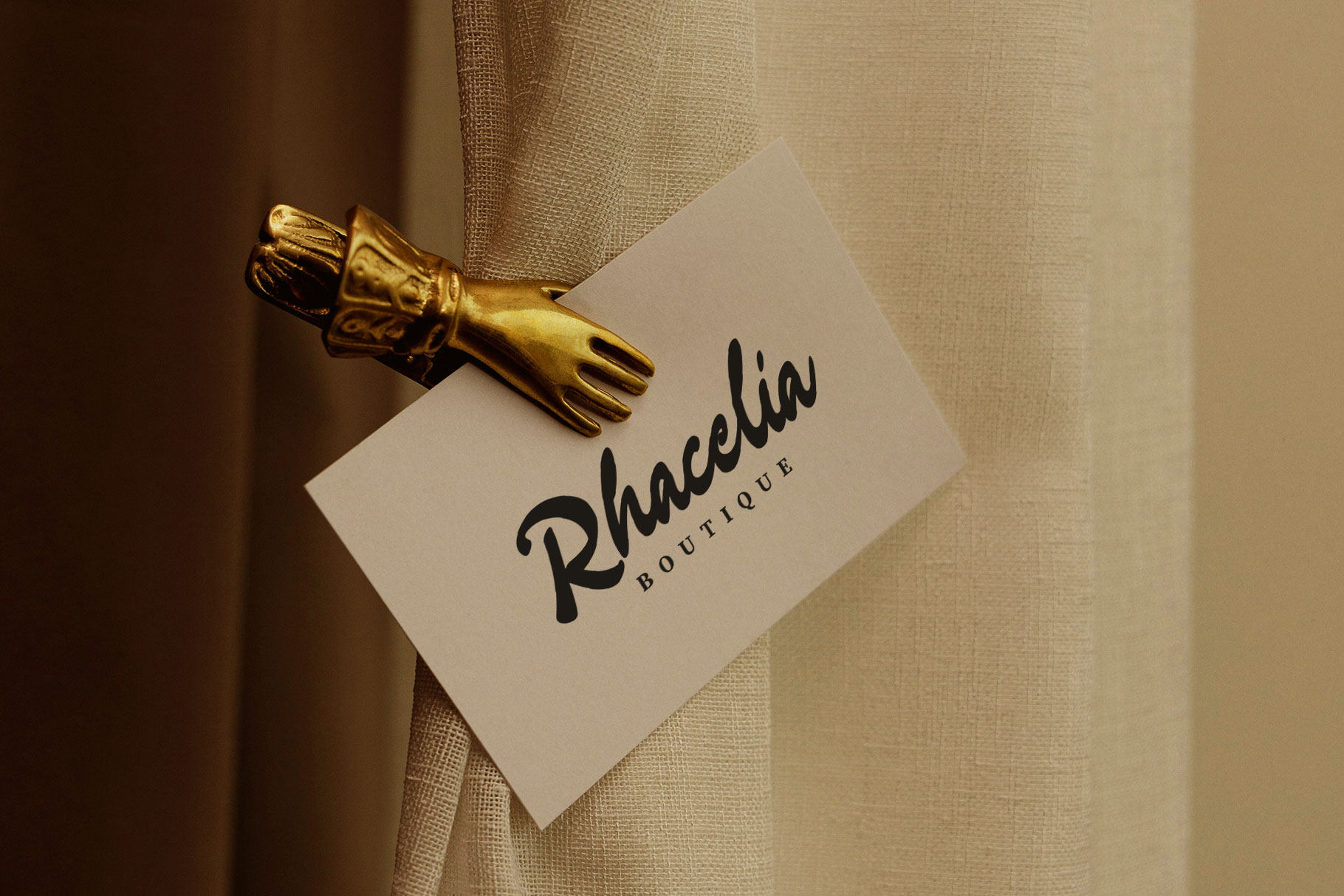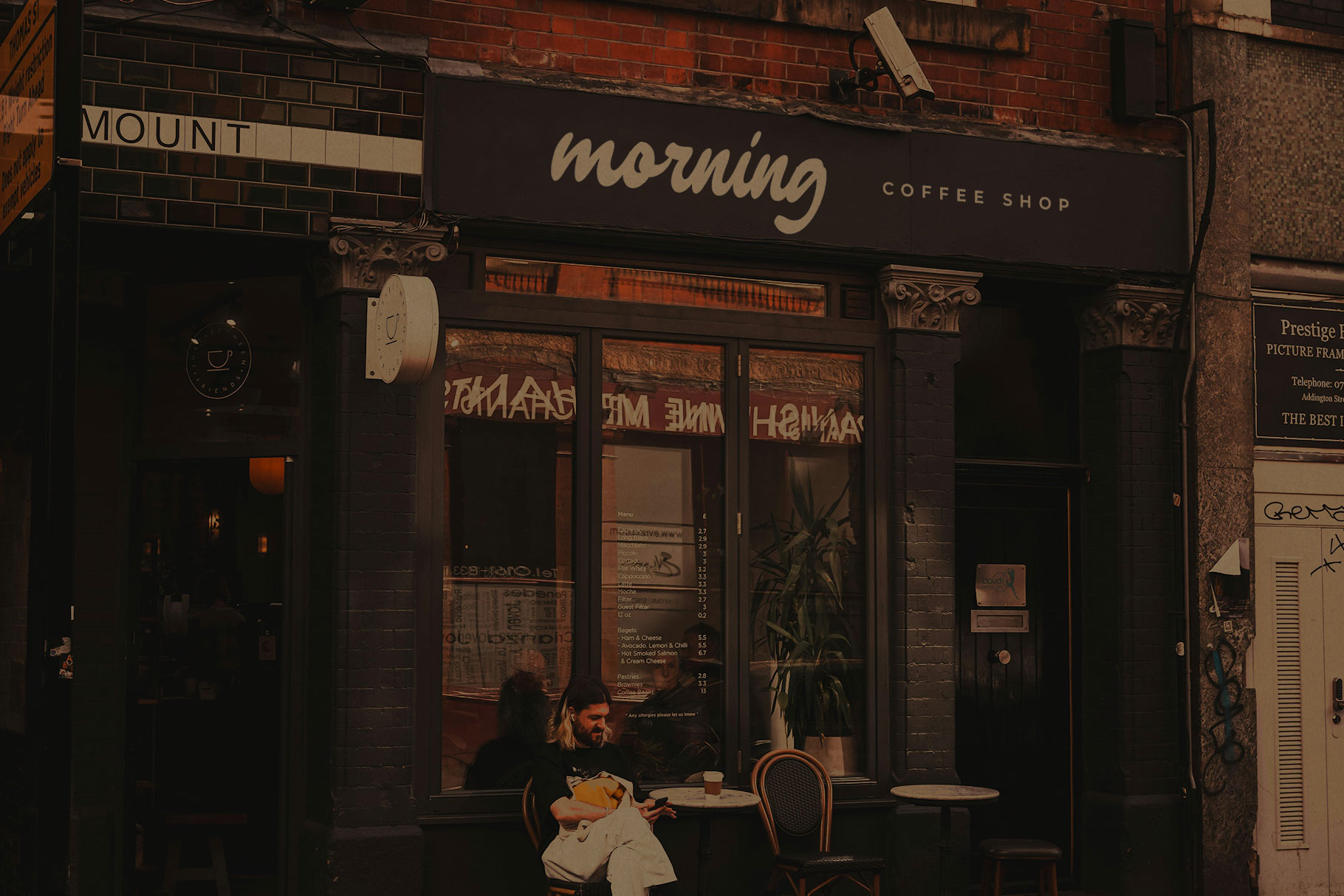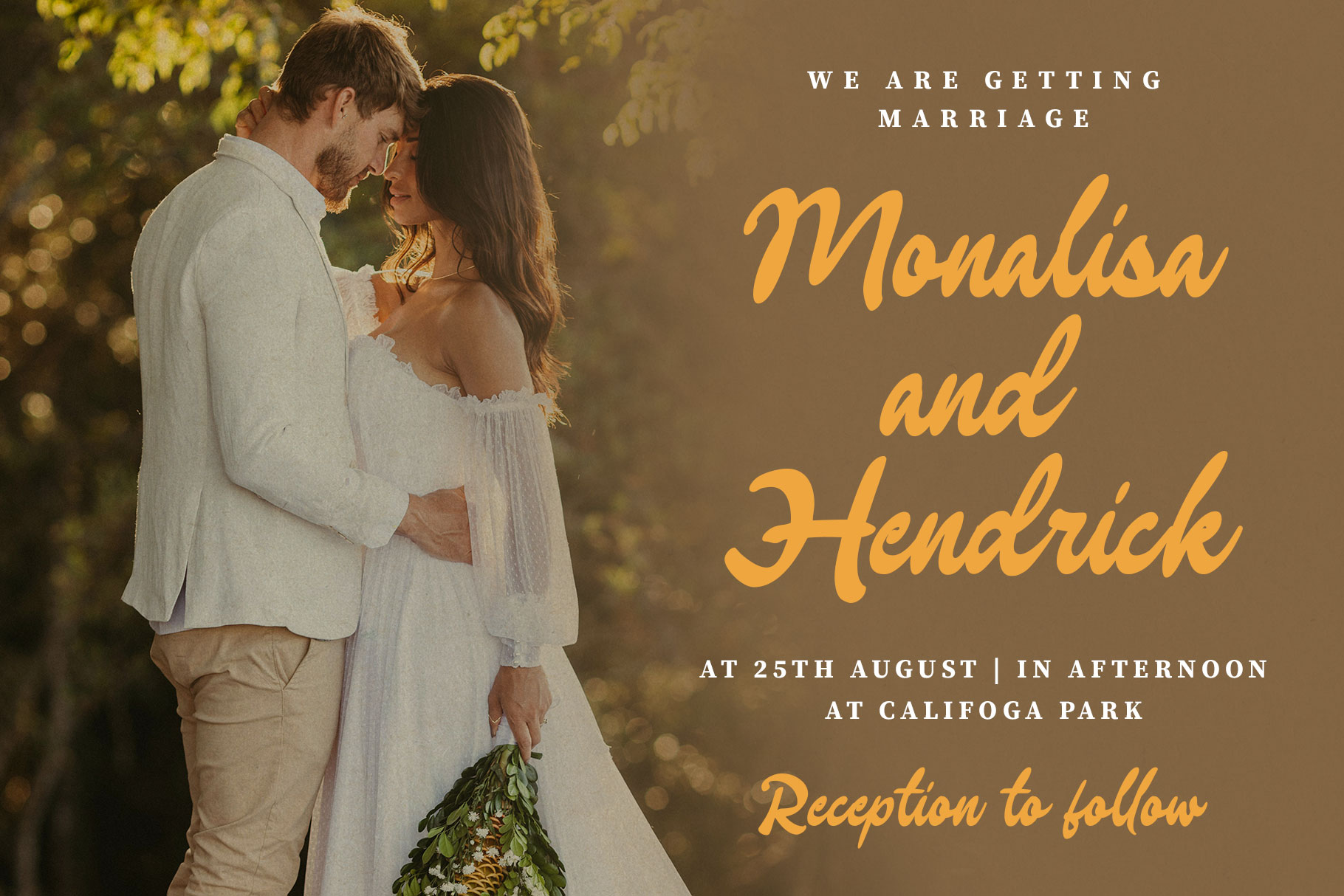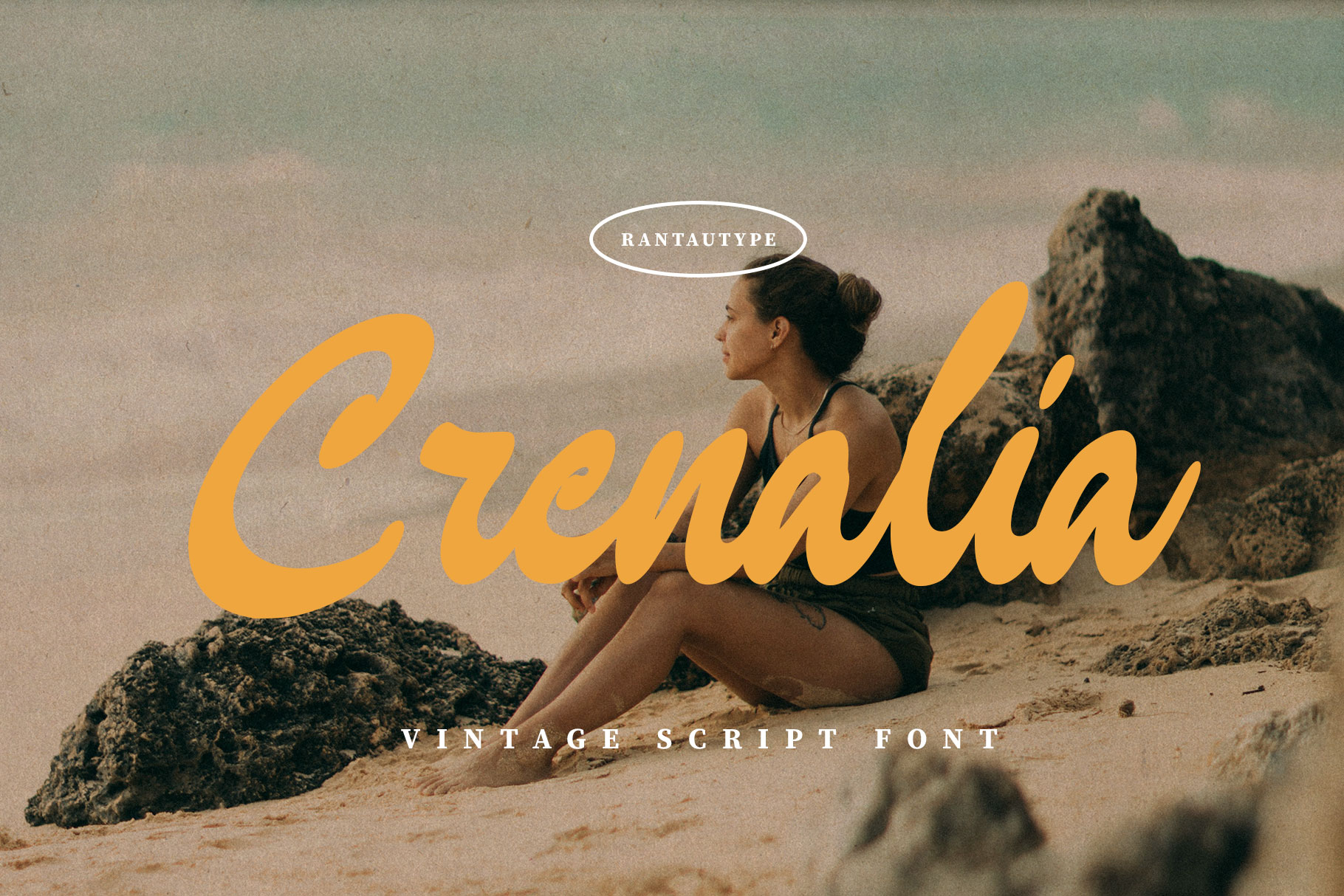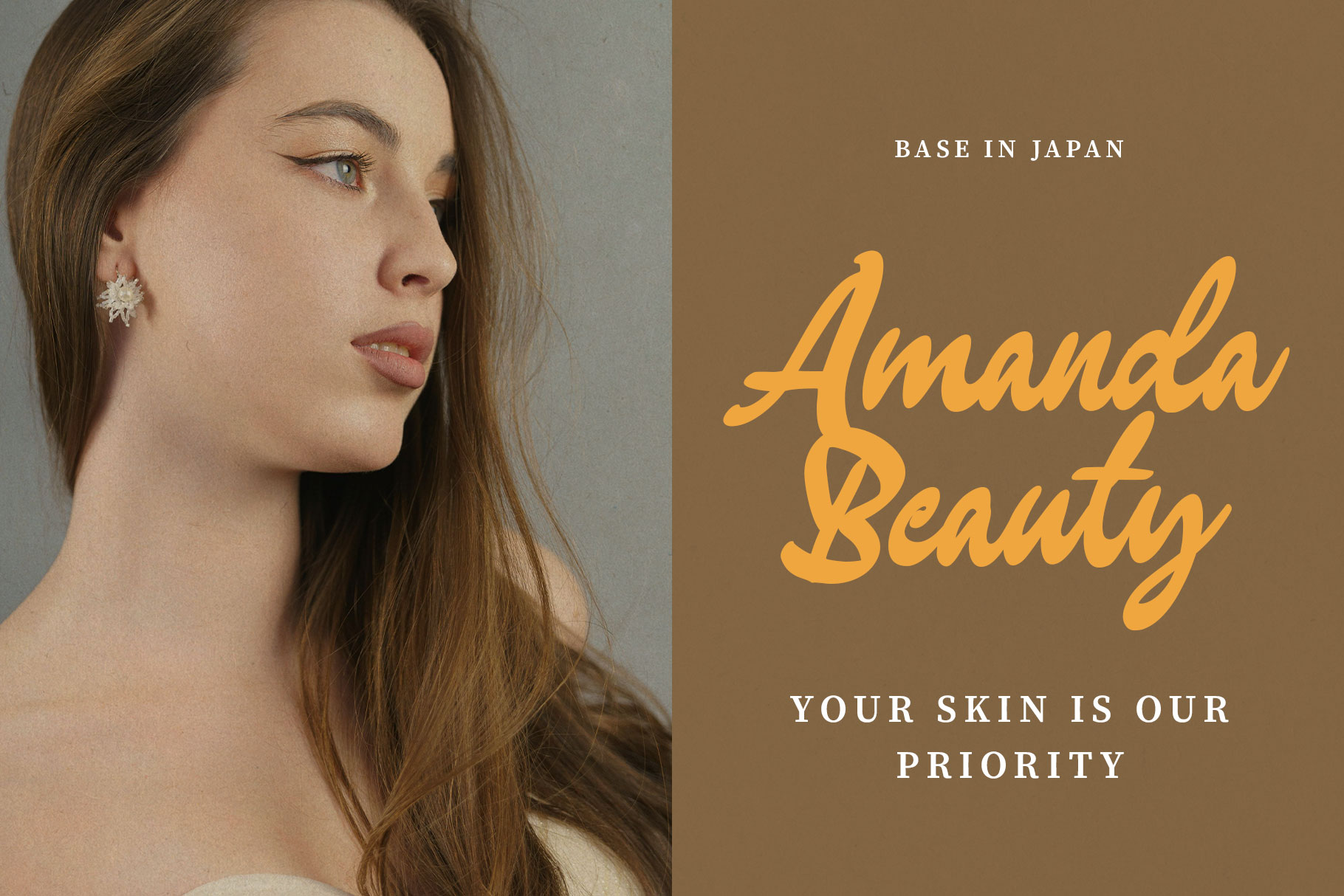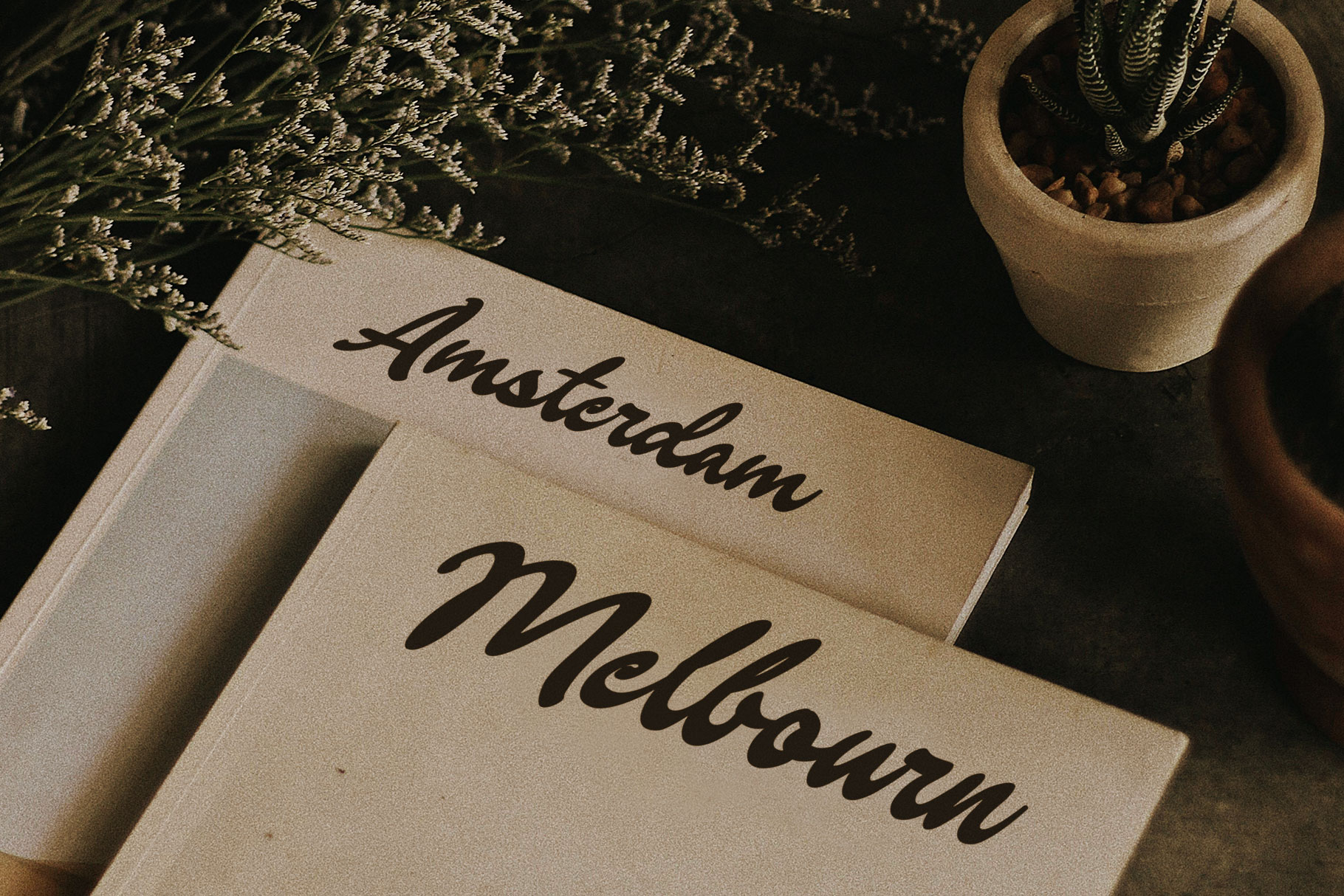
Crenalia Vintage Script Font
Crenalia is a timeless typeface that captures the charm, elegance, and handcrafted beauty of bygone eras. Rooted in the lettering styles of the late 19th to mid-20th century, it blends the fluidity of cursive handwriting with the calligraphy style.
Crenalia come with contrast bold character to make a nostalgic look. Grecina is a perfectly choice for any creative endeavor, creating, modern, lifestyle design such as logotype, title, cover, branding, invitations, wedding designs, display and magazine, social media posts, advertisements, printed quotes, product packaging, corporate brand, product designs, labels, photography, watermarks, special events and any other project with retro touch.